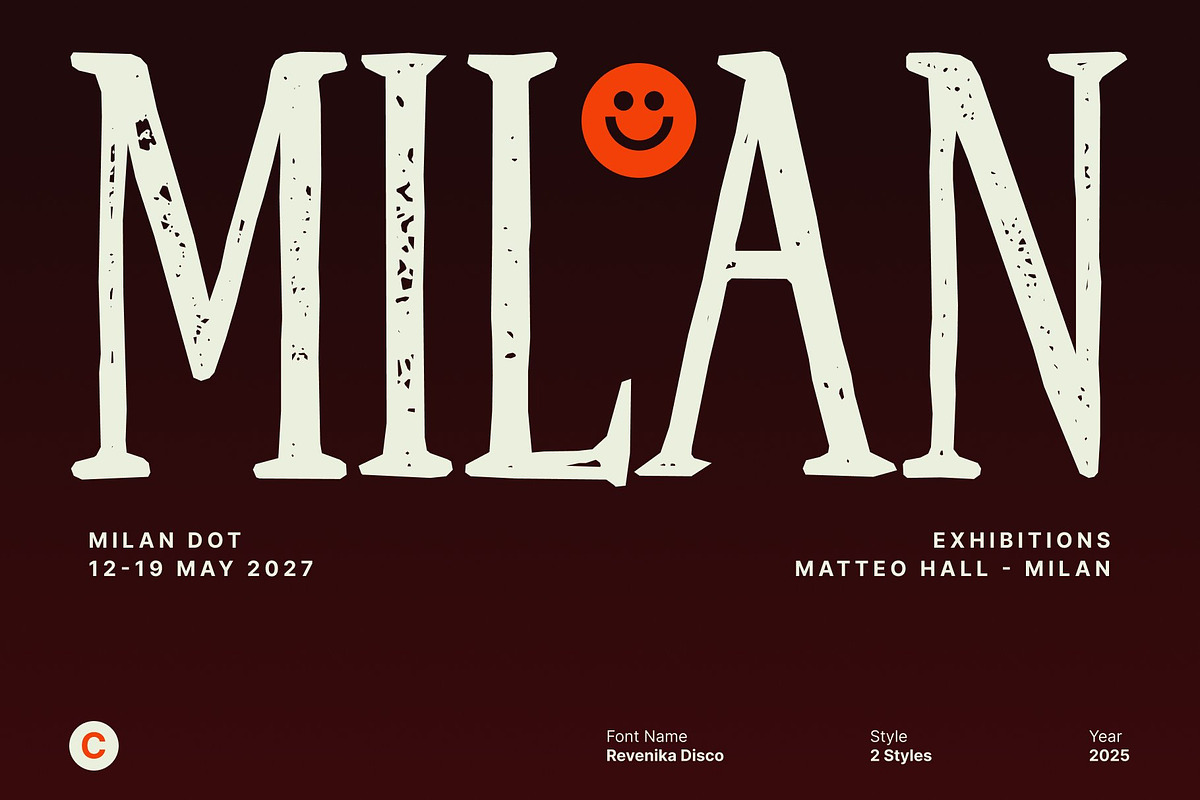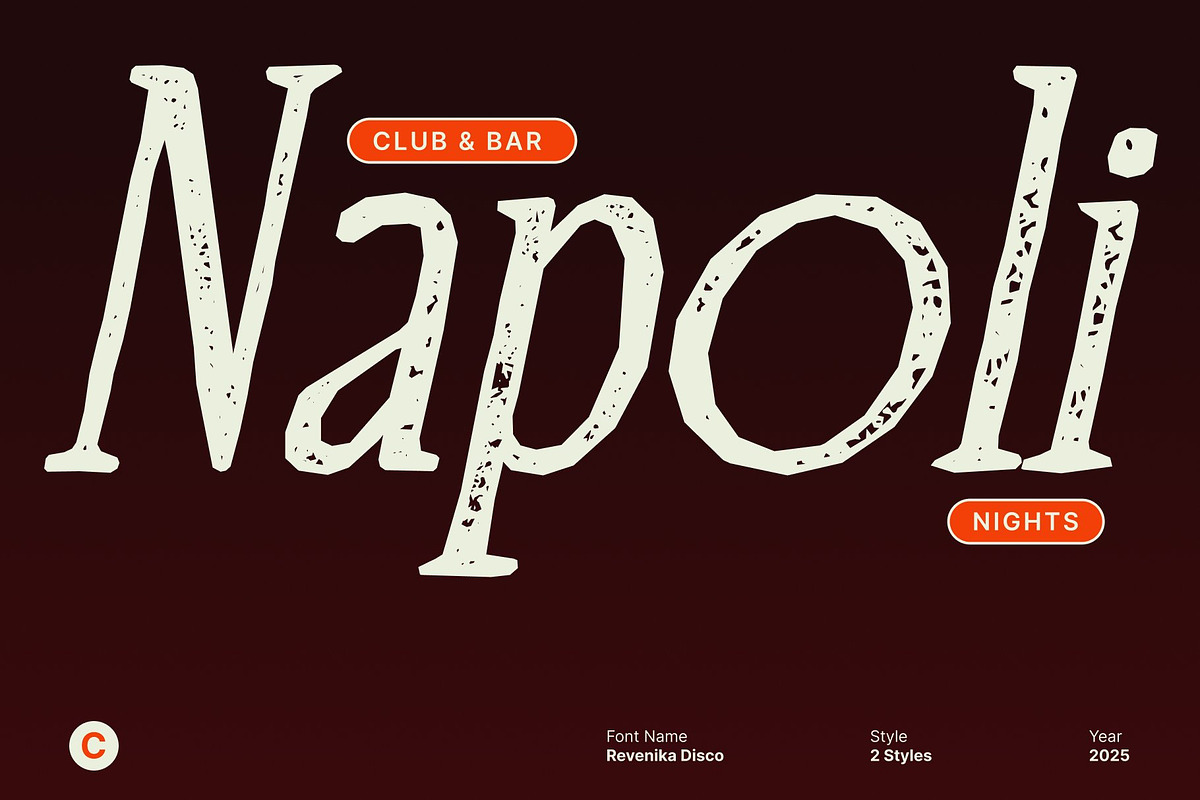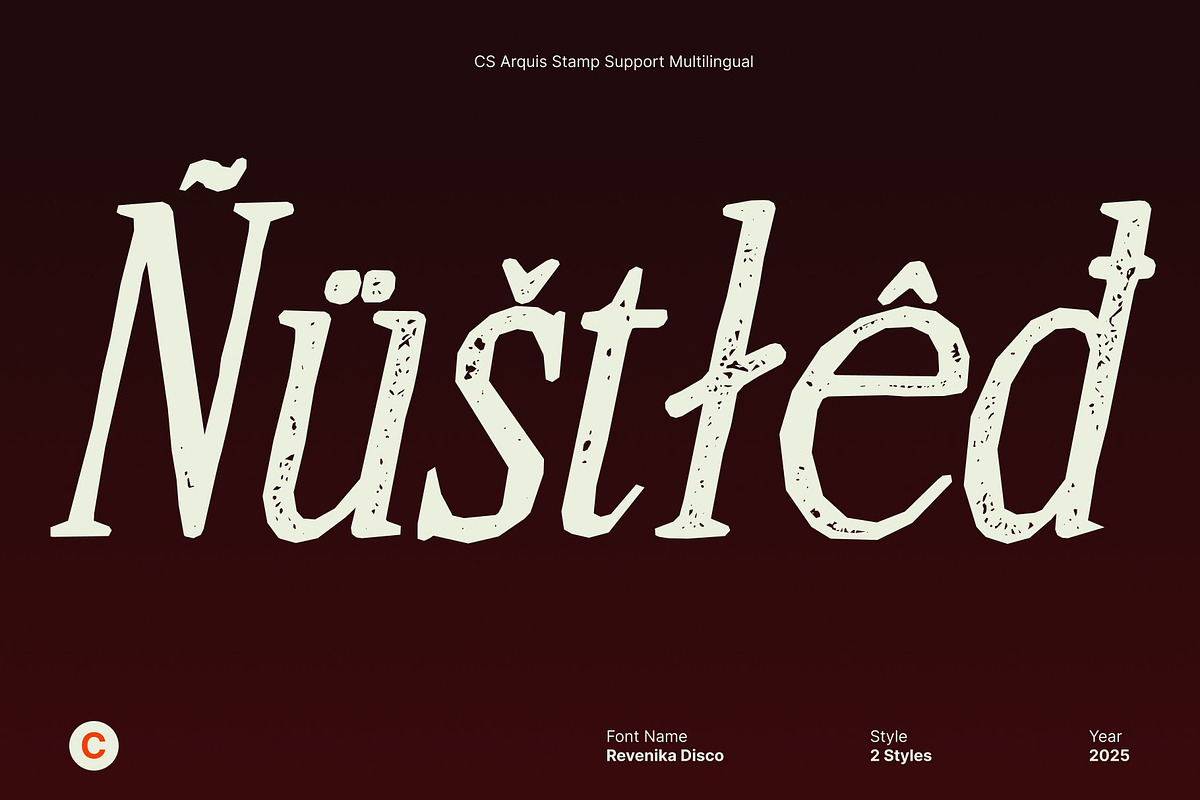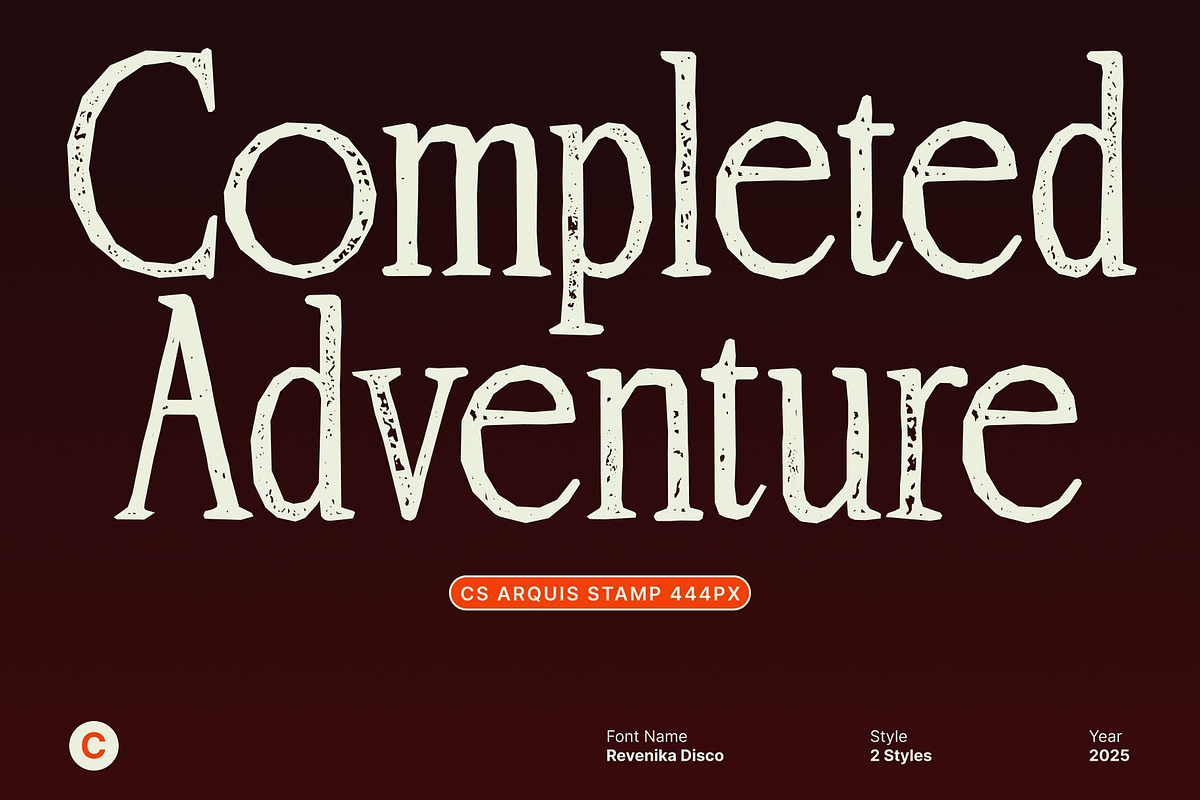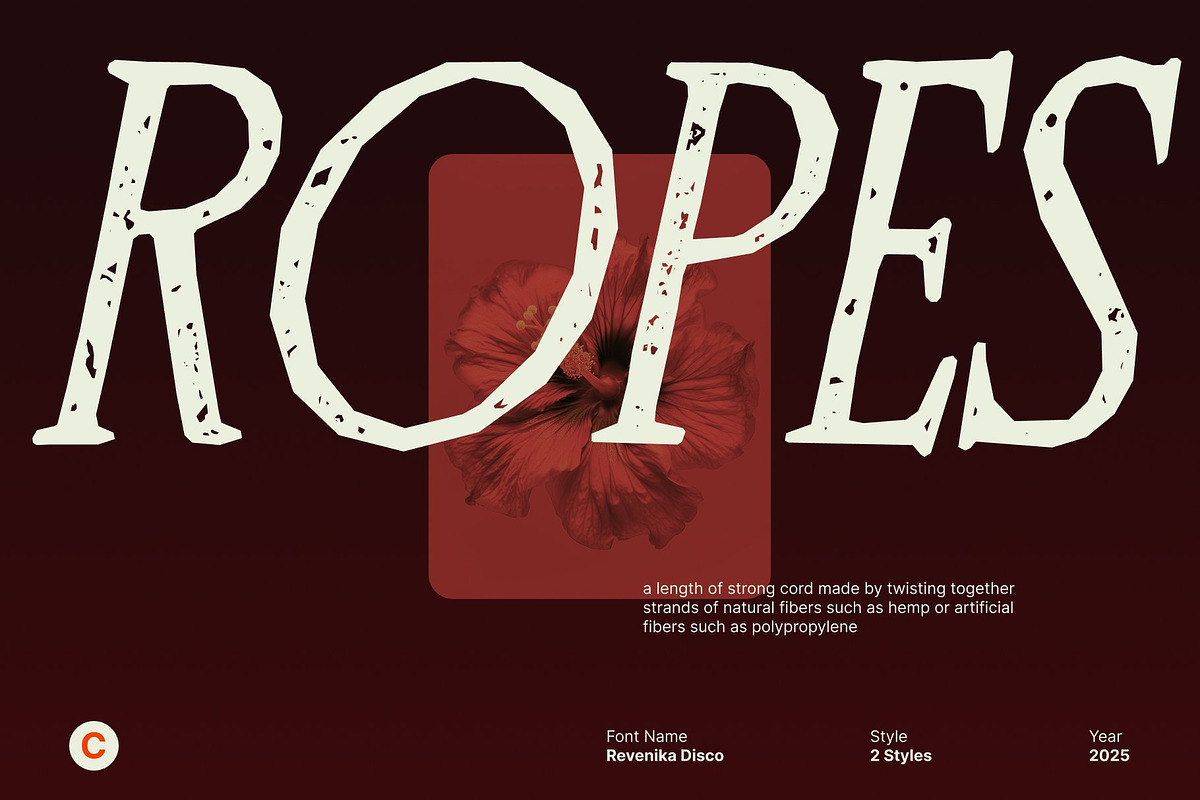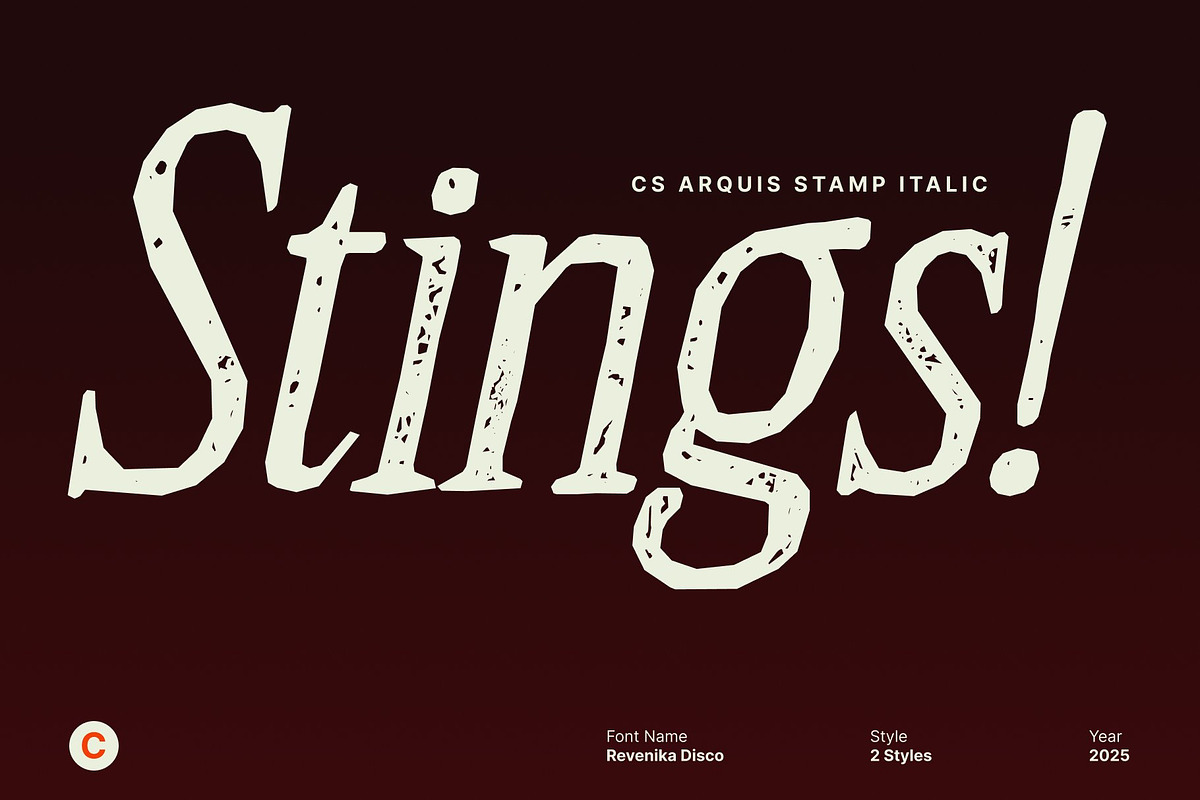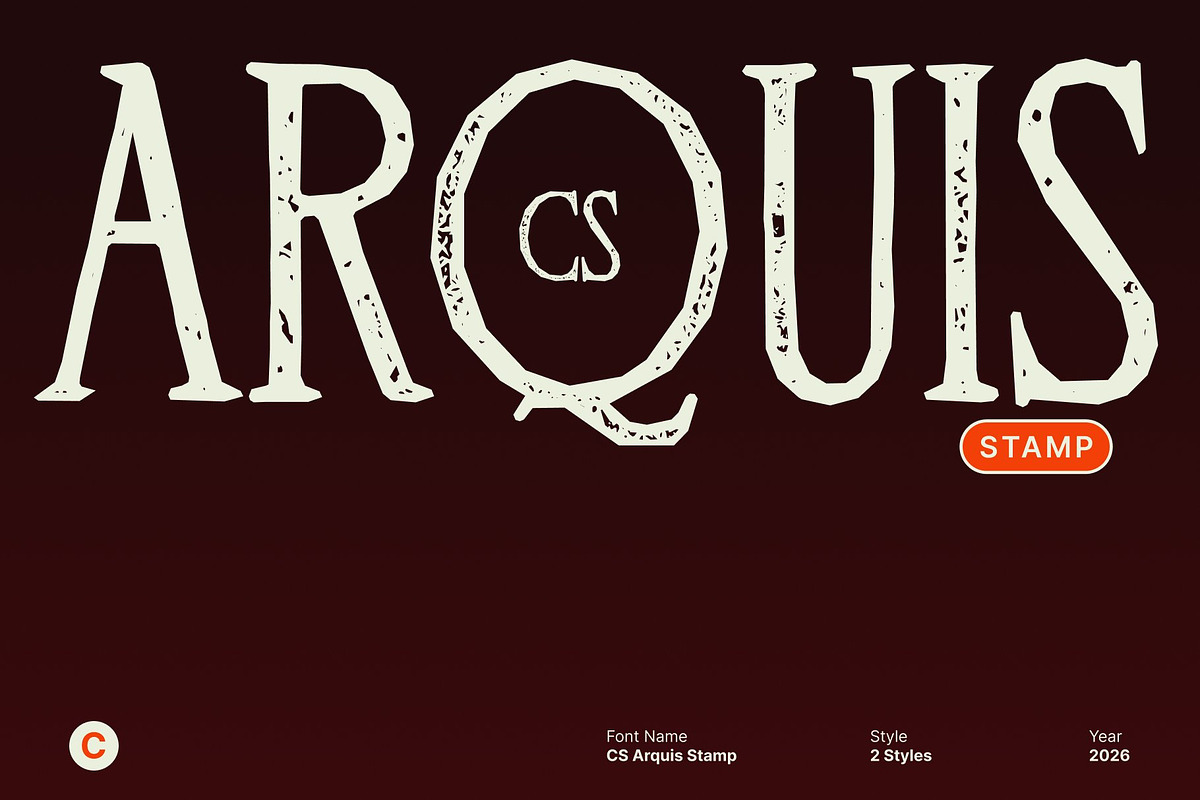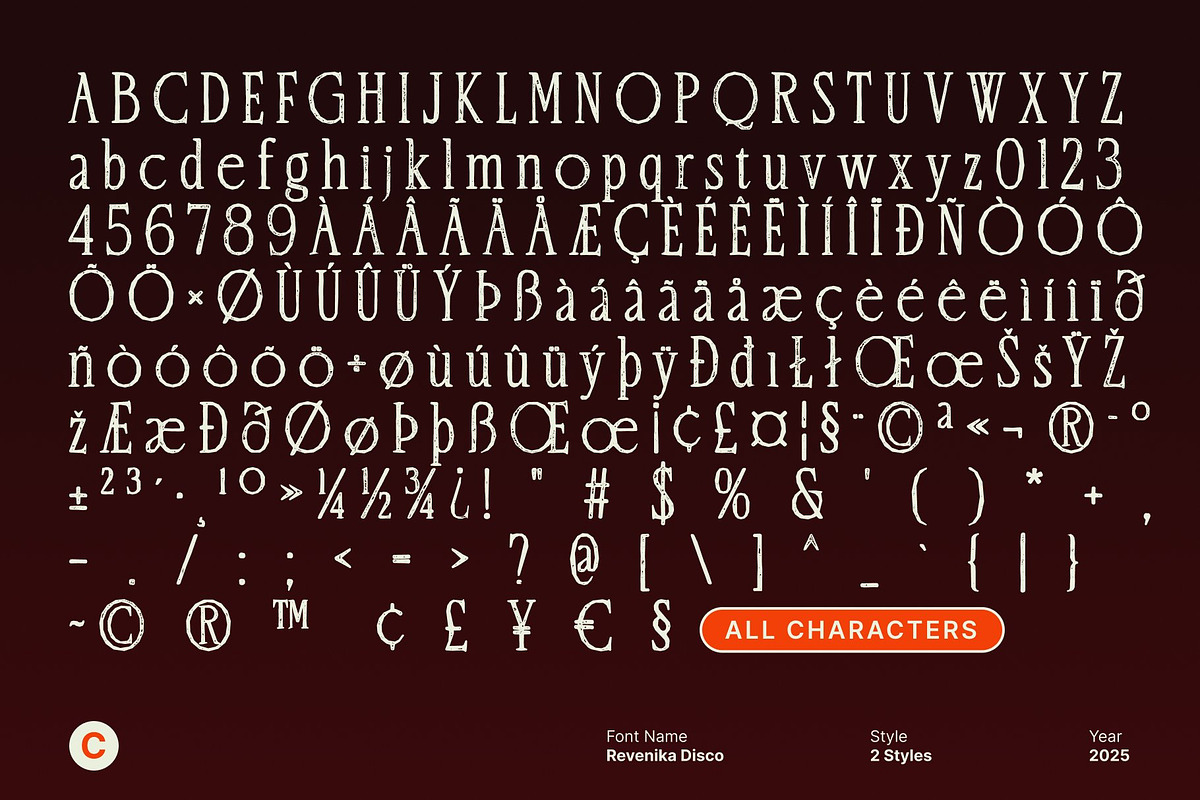
CS Arquis Stamp
CS Arquis Stamp – Condensed Elegance with Modern Refinement
Sleek Condensed Serif with Contemporary Sophistication This is a modern serif font defined by its tall, narrow proportions and long, slim serifs. Its condensed structure delivers a sleek and efficient silhouette, making it ideal for designs that demand elegance while maximizing space. The result is a refined typeface that feels modern, stylish, and confidently sophisticated.
Slim Serifs with Graceful Precision The slender, elongated serifs give a graceful and polished character. Clean vertical strokes combined with subtle curves create a harmonious balance between sharpness and elegance. This understated refinement allows the font to communicate luxury and professionalism without appearing excessive or ornate.
Stamped Texture for Subtle Character Enhanced with a stamped texture, gains a soft, slightly uneven surface that adds authenticity and depth. This textured finish introduces a tactile, handcrafted quality that enriches its refined structure, lending a quiet vintage nuance while maintaining a modern, high-end appearance.
Ideal for High-End and Space-Efficient Design Thanks to its condensed form, performs beautifully in high-end branding, fashion editorials, magazine headlines, packaging, and sophisticated visual identities. It allows designers to achieve strong visual impact in limited space without sacrificing readability or elegance.
CS Arquis Stamp Regular
CS Arquis Stamp Italic